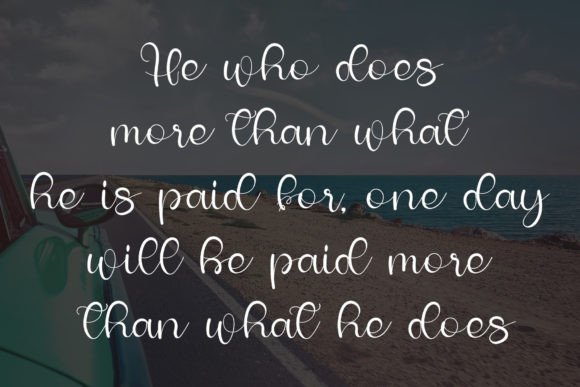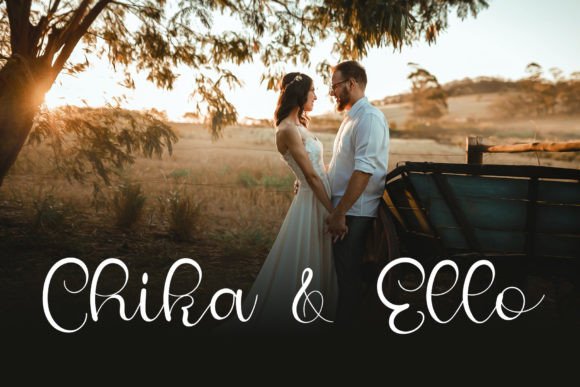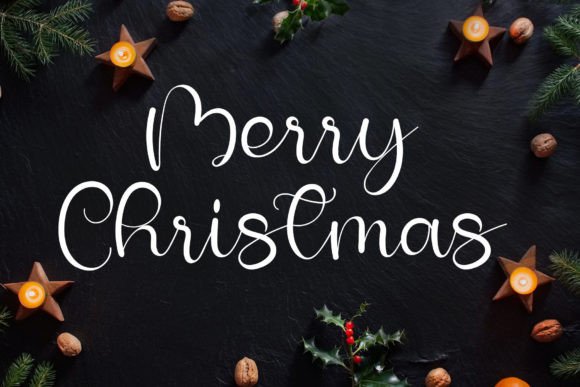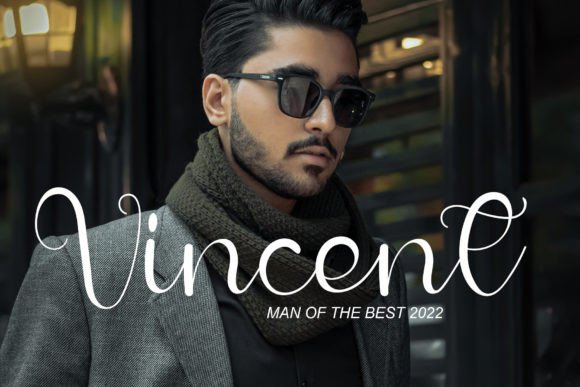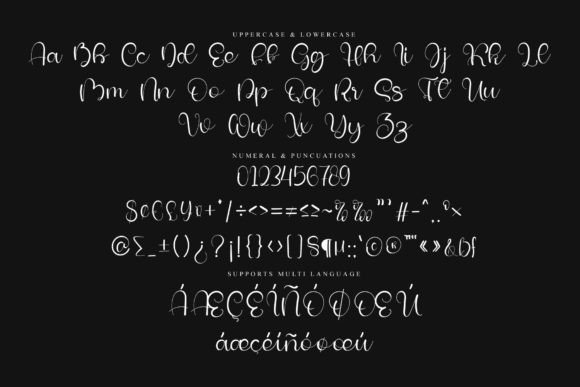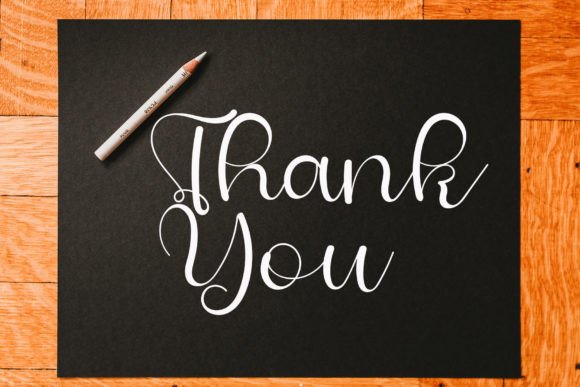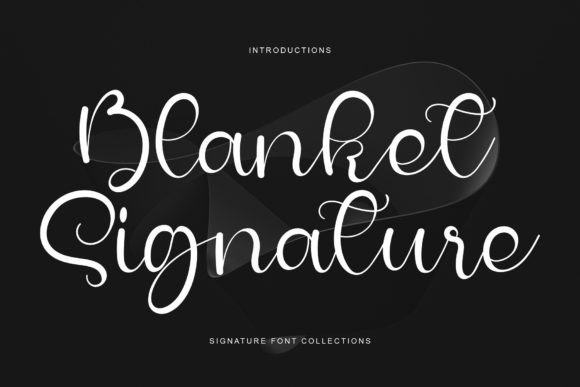
Introducing Blanket Signature Font: A Modern and Friendly Handwritten Font
Are you tired of using the same old fonts in your designs? Look no further! Blanket Signature Font is a modern and friendly handwritten font that is sure to elevate your creations. This beautifully crafted font is highly detailed and versatile, making it a wonderful asset to your font library.
What Makes Blanket Signature Font Special?
Blanket Signature Font is a unique and eye-catching font that is perfect for a wide range of design projects. Whether you’re working on a logo, branding materials, social media graphics, or even a website, this font is sure to make a statement. Its modern and friendly feel makes it perfect for designers and crafters who want to add a personal touch to their work.
Key Features of Blanket Signature Font
- Modern and Friendly Design: Blanket Signature Font has a fresh and approachable design that is sure to appeal to a wide range of audiences.
- Highly Detailed: This font is meticulously crafted with attention to detail, ensuring that it looks great in any size or application.
- Versatile: Blanket Signature Font can be used for a wide range of design projects, from logos and branding materials to social media graphics and websites.
- Easy to Read: The font is designed to be easy to read, making it perfect for body text, headings, and titles.
How to Use Blanket Signature Font in Your Designs
Blanket Signature Font is incredibly easy to use and can be incorporated into your designs in a variety of ways. Here are a few ideas to get you started:
- Logos and Branding Materials: Use Blanket Signature Font to create a unique and memorable logo or branding materials that will help your business stand out.
- Social Media Graphics: Add a personal touch to your social media graphics with Blanket Signature Font. It’s perfect for creating eye-catching posts, stories, and ads.
- Websites: Use Blanket Signature Font to add a friendly and approachable feel to your website. It’s perfect for headings, titles, and body text.
- Crafting and DIY Projects: Blanket Signature Font is also perfect for crafters and DIY enthusiasts who want to add a personal touch to their projects. Use it to create beautiful signs, labels, and titles.
Tips for Getting the Most Out of Blanket Signature Font
Here are a few tips for getting the most out of Blanket Signature Font:
- Pair it with Other Fonts: Blanket Signature Font pairs well with a wide range of fonts. Try pairing it with a bold font for headings and a clean font for body text.
- Use it Consistently: Use Blanket Signature Font consistently throughout your design to create a cohesive look and feel.
Blanket Signature Font is a modern and friendly handwritten font that is sure to elevate your designs. Its highly detailed and versatile design makes it perfect for a wide range of projects, from logos and branding materials to social media graphics and websites. With its ease of use and flexibility, Blanket Signature Font is a wonderful asset to your font library. So why wait? Download Blanket Signature Font today and start creating beautiful designs that will leave a lasting impression!